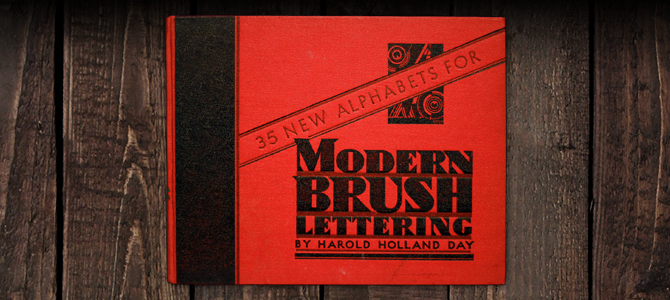
Modern Brush Lettering - Harold Holland Day - 1931
What makes this book unique is the in-depth explanation of origin and usage of various popular type and lettering styles of its day. There are plenty of gorgeous show card layouts towards the tail end of this book, as well as a heap of assorted Art-Deco styled alphabets spanning almost 90 pages. Modern Brush Lettering is a great window into the past at Depression-Era alphabets and advertising.